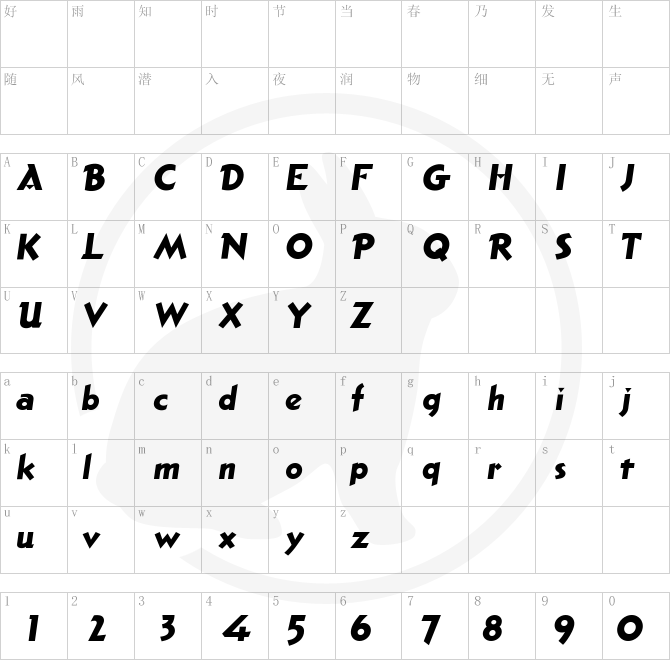
- Font Name:Pacific
- Full Name:PacificClipperBdObSG
PacificClipperBdObSG.ttf is a very beautiful artistic font, PacificClipperBdObSG.ttf is widely used in the design and printing of various books and pictures,PacificClipperBdObSG.ttf has a strong visual impact,PacificClipperBdObSG.ttf is a commonly used font in newspapers, magazines and books, and is used in posters, e-commerce Poster design, store design, logo design, font design and other fields.PacificClipperBdObSG.